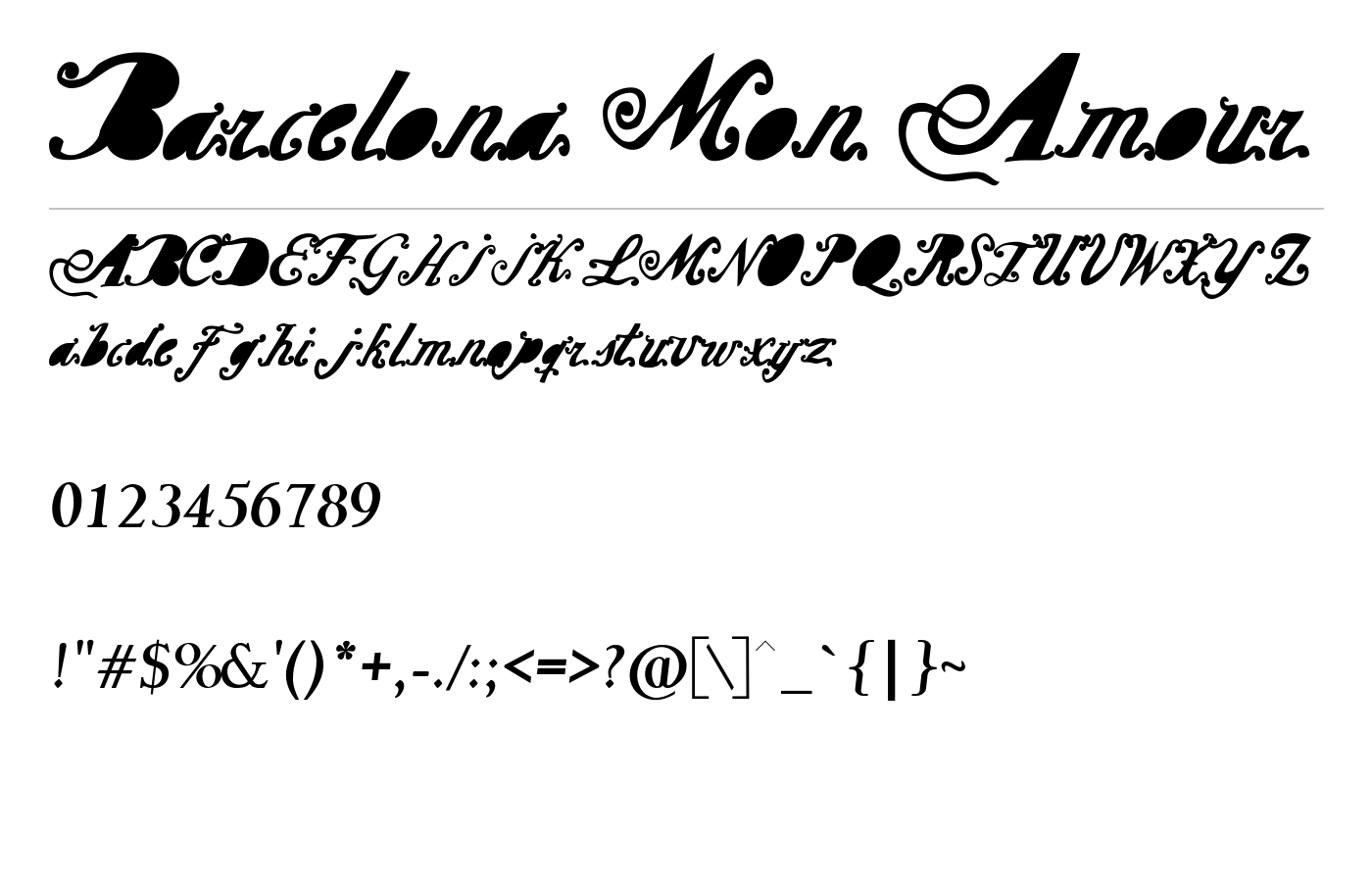
Barcelona Mon Amour is an ornamental script font with a bold, playful character marked by its heavy, contrasting strokes and whimsical curls. It evokes a vintage, romantic feel that suits creative branding, invitations, and decorative headlines where a touch of personality and flair is desired. This font shines in settings that call for elegance combined with a spirited, artistic vibe.
Barcelona Mon Amour Font
About Barcelona Mon Amour Font